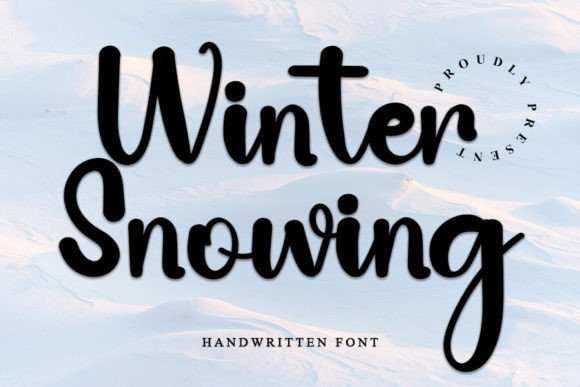
Journey into the realm of captivating scripts with Winter Snowing, the enchanting handwritten font crafted with an elegant touch, just for you. Let your creativity flourish as you immerse yourself in its distinctive, timeless style. From personal projects to impactful designs, Winter Snowing stands ready to transform your visions into stunning realities.
Explore the boundless possibilities of this font, carefully designed by PiPi Creative, a renowned name in the world of typography. With its remarkable versatility, Winter Snowing lends itself effortlessly to a wide array of projects, from heartfelt handwritten notes and personal invitations to striking logos and eye-catching marketing materials. Unleash your imagination and let Winter Snowing guide you toward creative greatness.
Welcome to the world of Winter Snowing, where beauty and functionality intertwine. Experience the allure of its gracefully flowing characters, each meticulously crafted to evoke a sense of elegance and sophistication. Elevate your designs to new heights with this font, whether you're a seasoned professional or just starting your design journey.
Immerse yourself in the charm of Winter Snowing, a script that effortlessly embodies the spirit of creativity. Its intricate details and delicate strokes add a touch of whimsy and playfulness to your designs, making them truly captivating. With Winter Snowing, your creations will leave a lasting impression, speaking volumes about your unique style and impeccable taste.